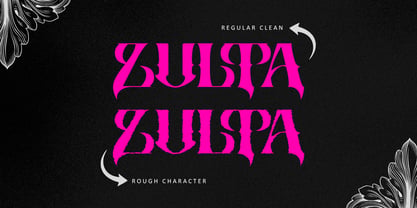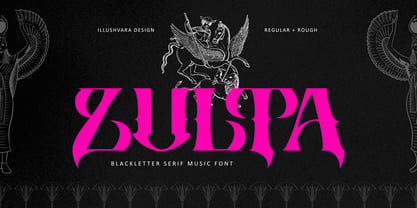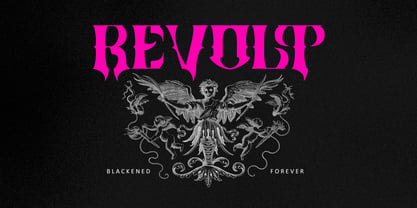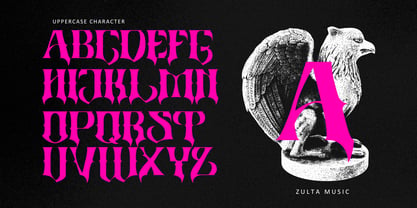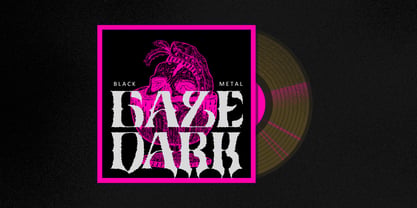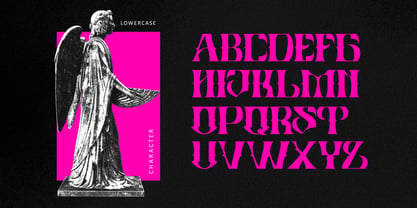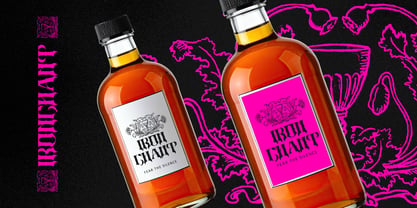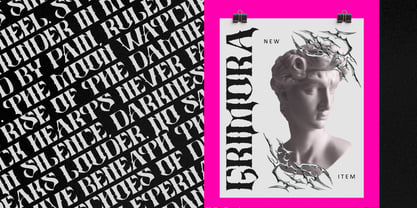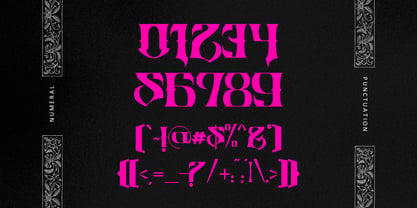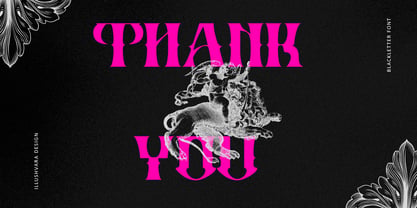
Zulta Music
The Zulta Music Font Family was designed by Bayu Suwirya and published by Illushvara. Zulta Music contains 2 styles and family package options. More about this family
Zulta Music is a bold blackletter font family combining sharp serif allcaps with powerful gothic energy. Available in regular and rough styles, this typeface is designed for metal music promotion, album covers, band merchandise, posters, festival branding, and dark visual projects. Zulta Music delivers an aggressive yet elegant character with strong vintage influences, dramatic letterforms, and textured details that create a raw underground aesthetic perfect for modern metal and hardcore designs.